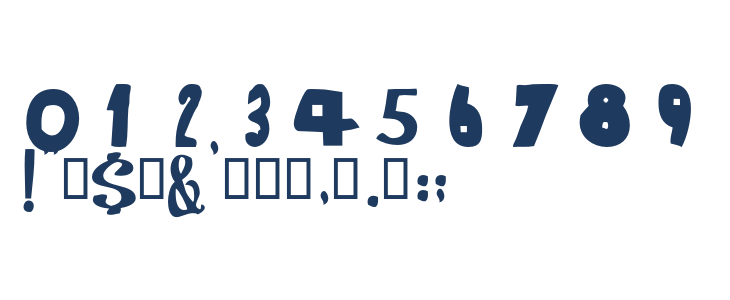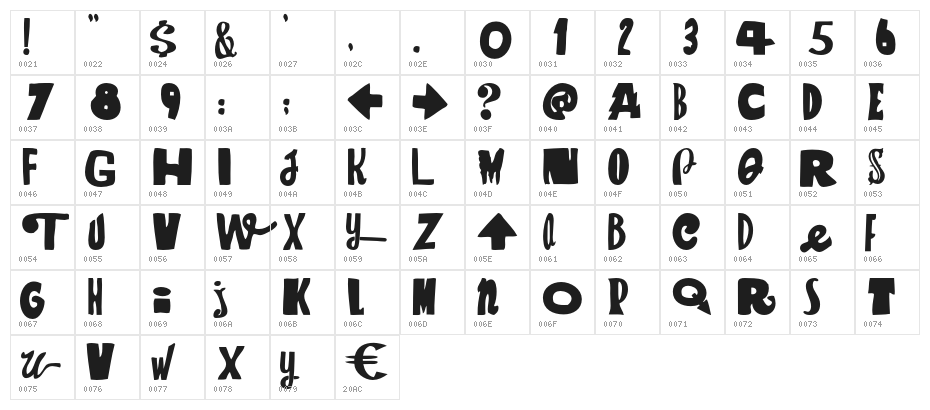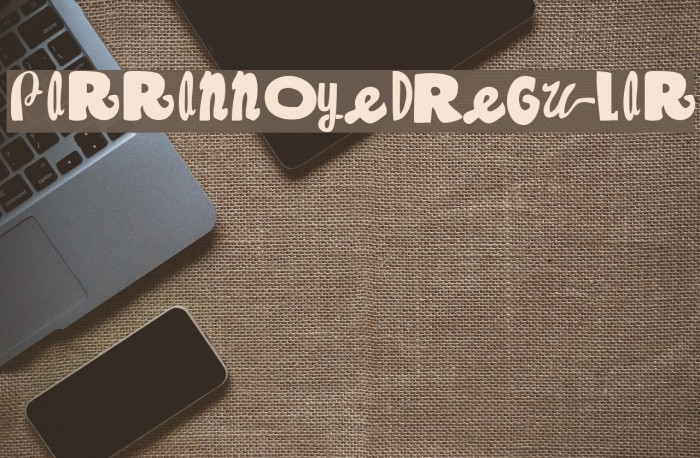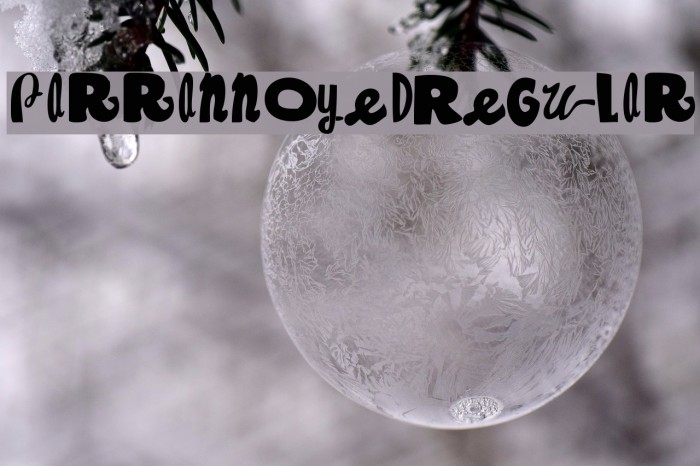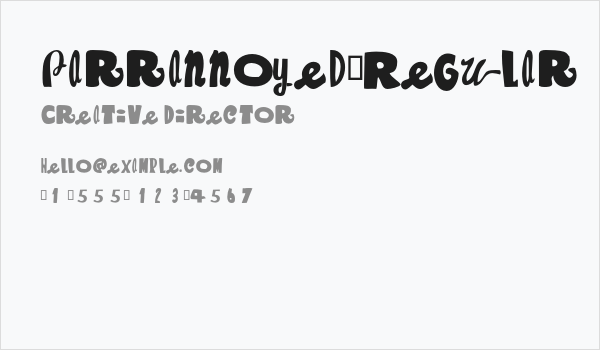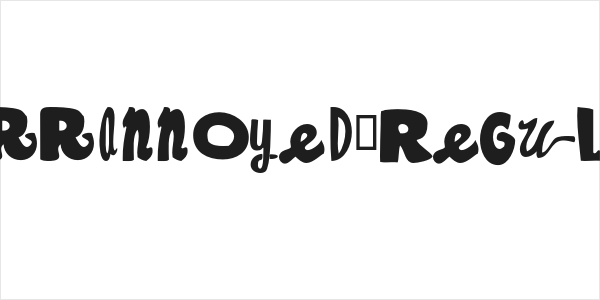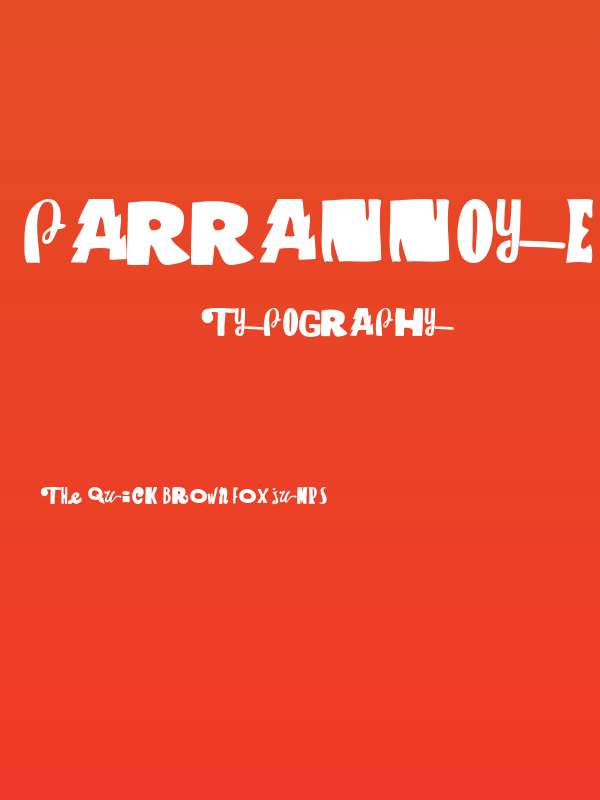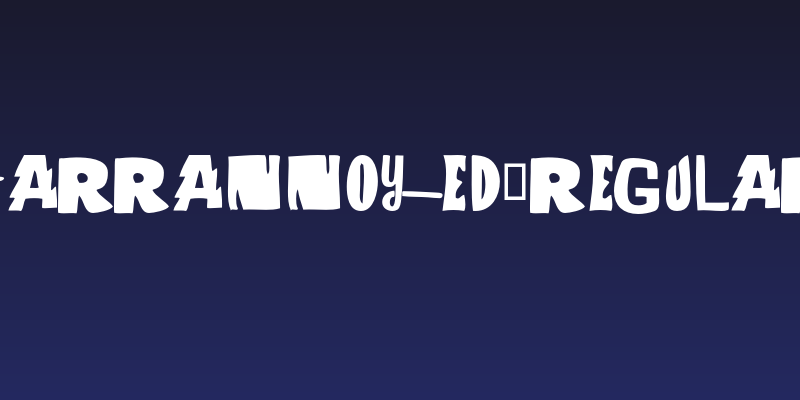
Parrannoyed-Regular Font
Parrannoyed-Regular Description
This font features a playful and whimsical design with exaggerated and irregular shapes that give it a unique and quirky appearance. The letters are bold and have a hand-drawn feel, with varying stroke widths that add to its dynamic and lively character. The uppercase and lowercase letters maintain a consistent style, while the numbers and special characters follow the same playful theme. This font is ideal for projects that require a fun and eye-catching look, making it suitable for creative and informal designs.
| Overall Style | Whimsical, Playful |